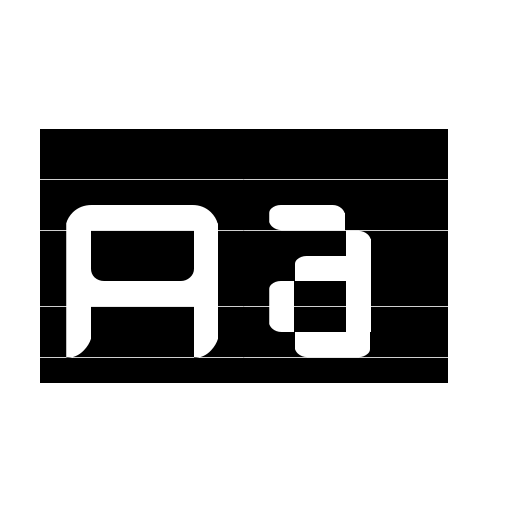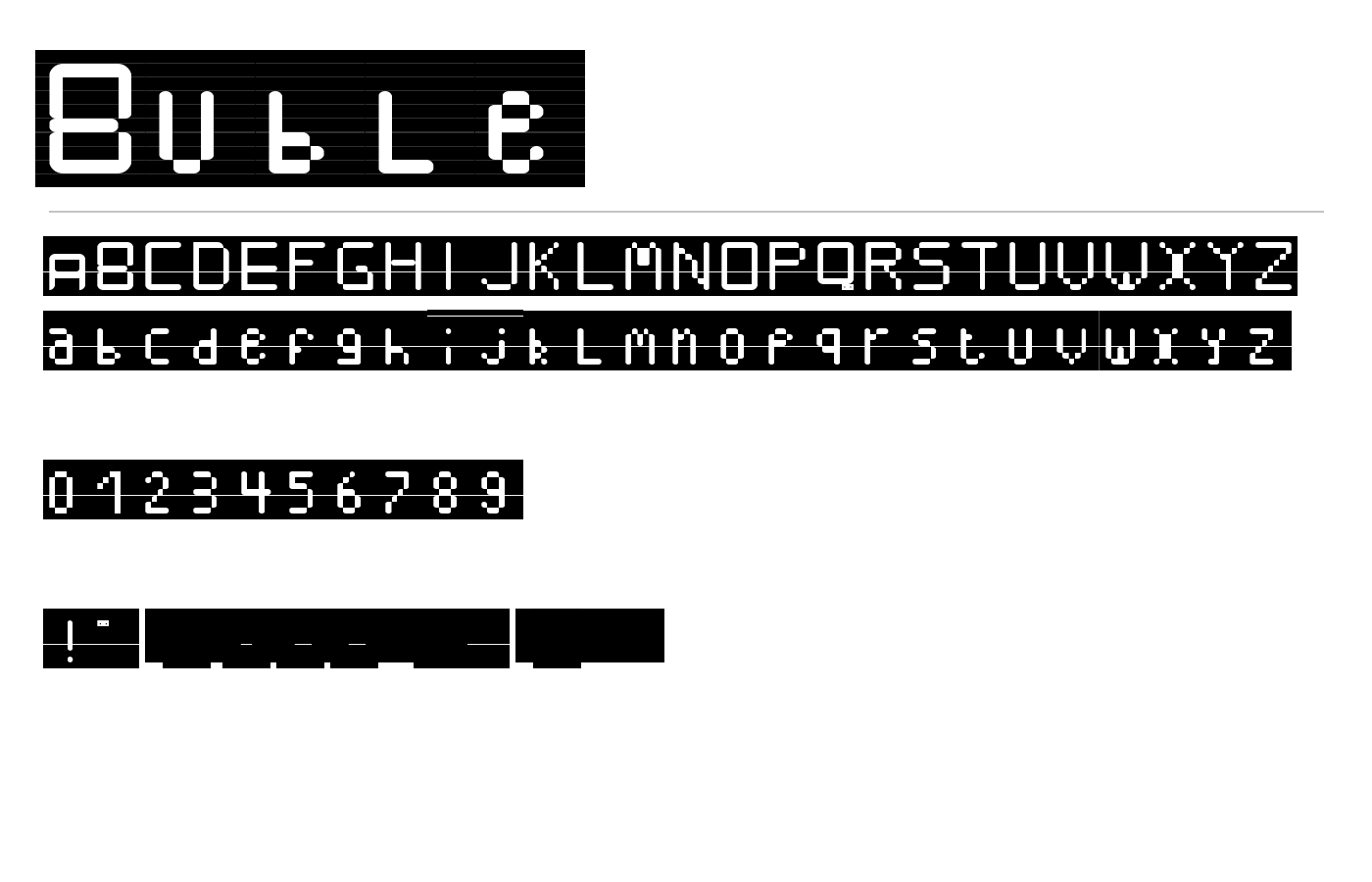
Buble is a futuristic, geometric sans-serif font characterized by its modular, pixel-like rounded shapes and consistent stroke weight. Its clean, tech-inspired aesthetic with unique broken and connected strokes lends a modern, digital feel ideal for technology branding, digital displays, and contemporary graphic design. This font works well in headlines, logos, and projects seeking a bold yet playful futuristic vibe.
Buble Font
About Buble Font